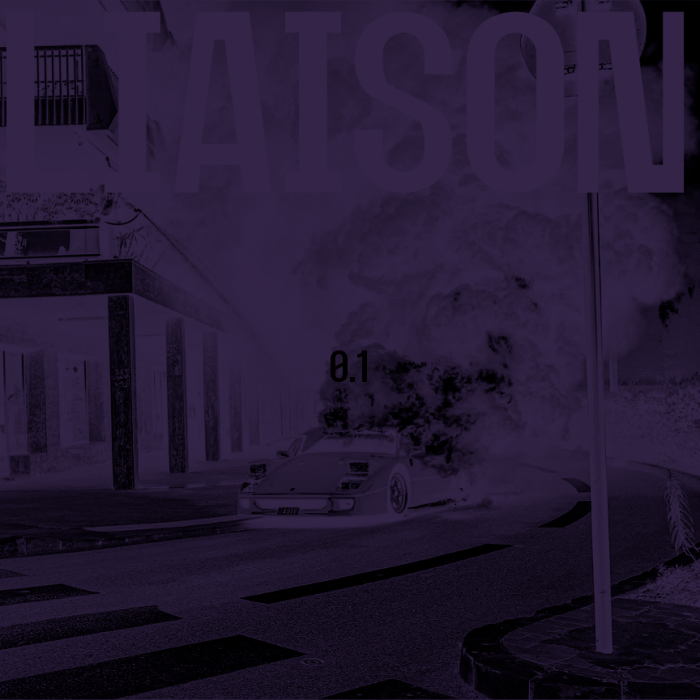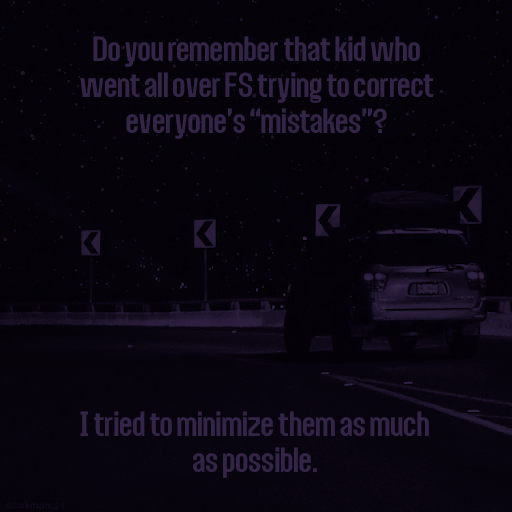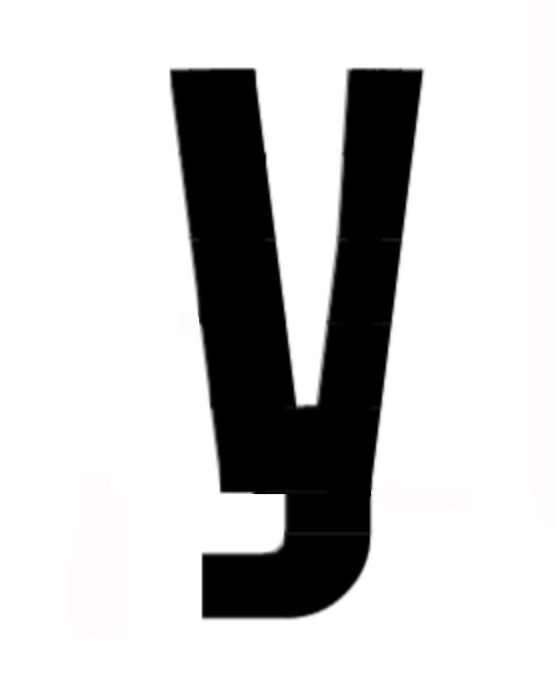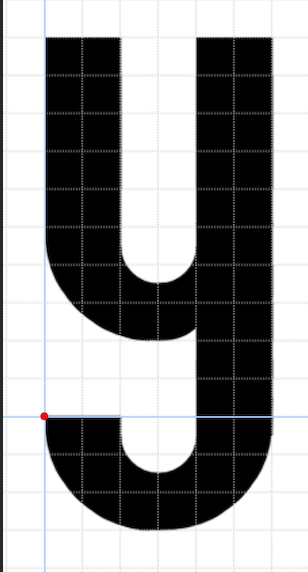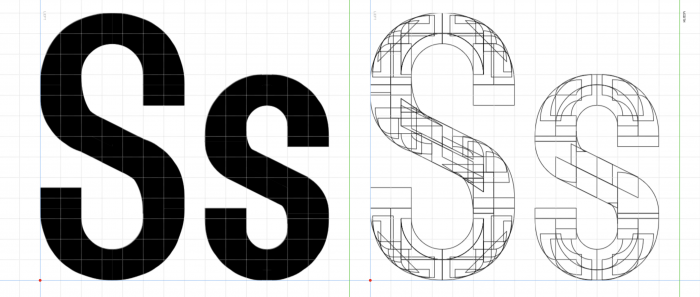
holy hell sample
I think the spine of Ss is kind of skinny, orher than than awesome job, it does exactly what it should.
I'm with @Sed4tives. And what about this "y"?
This is your cleanest work, but at the same time it retains your style and taste, cool.
Somehow, my head is thinking of this version of y:
uhhhhh...
I like a lot the "@".
I wonder if there will be kids who see this and say "oh mah gah so satisfying"
A suggestion to increase the thickness of the spine of the Ss, in case you may be interested.
Excellent sans serif.
Needs the þ, ð, æ, and œ ligatures
I agree.
Processos